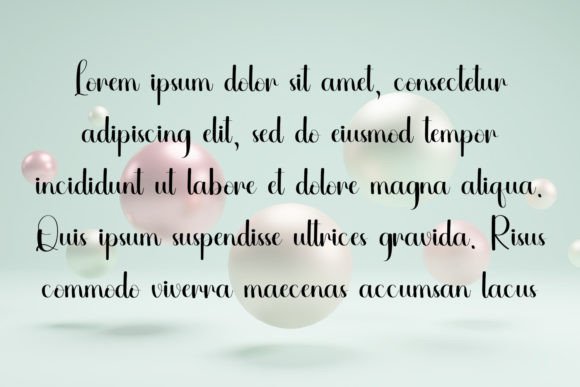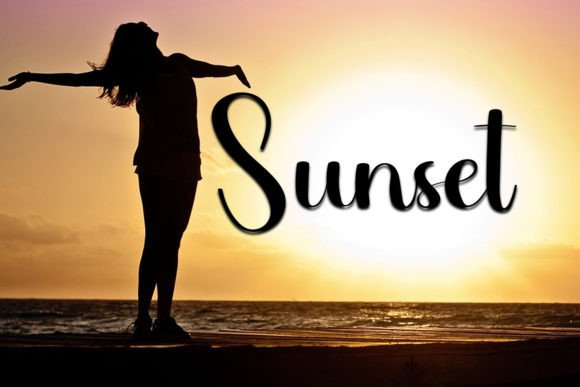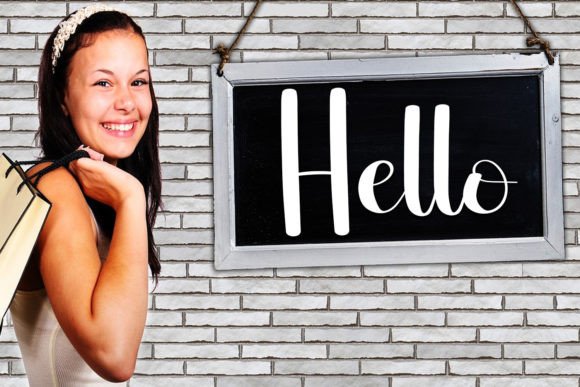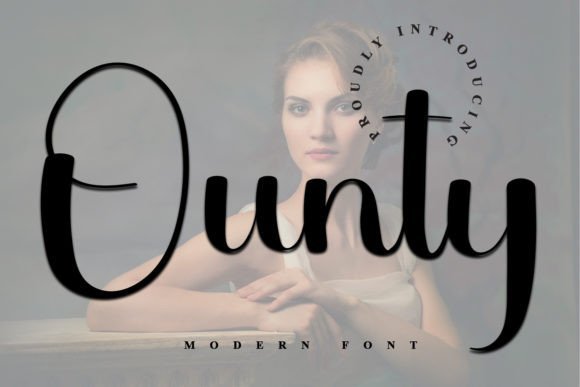
Introduction to Ounty Font
Ounty feels equally charming and elegant.
It looks stunning on wedding invitations, thank you cards, quotes, greeting cards, logos, business cards, and every other design which needs a handwritten touch .
Ounty Font offers exceptional quality and versatility, making it a valuable addition to your design toolkit. Whether you’re creating for personal projects or commercial use, Ounty Font delivers professional results.